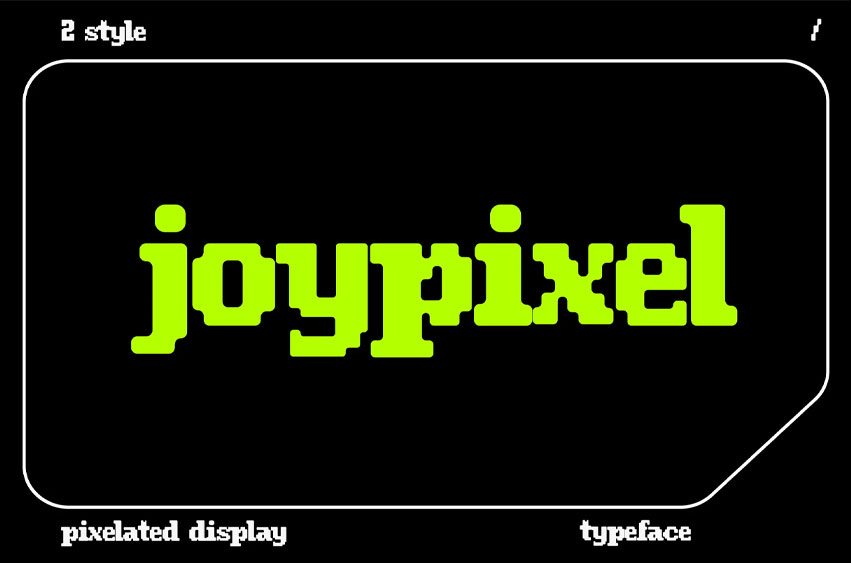
Joypixel Font is a pixel-style display font that brings retro gaming charm into the digital age. Perfectly crafted with a pixelated structure, Joypixel evokes the nostalgic vibe of classic 8-bit games, making it ideal for game UI, vintage tech posters, YouTube thumbnails, and digital-themed branding.
With its bold style and two display variations, it’s a fun and versatile font for tech-inspired projects.